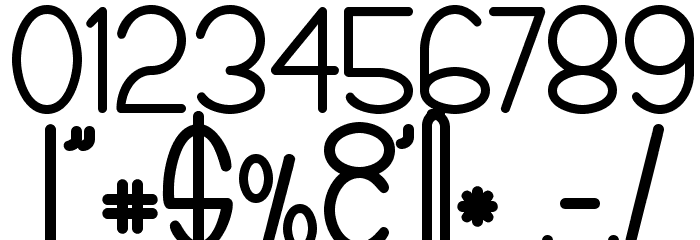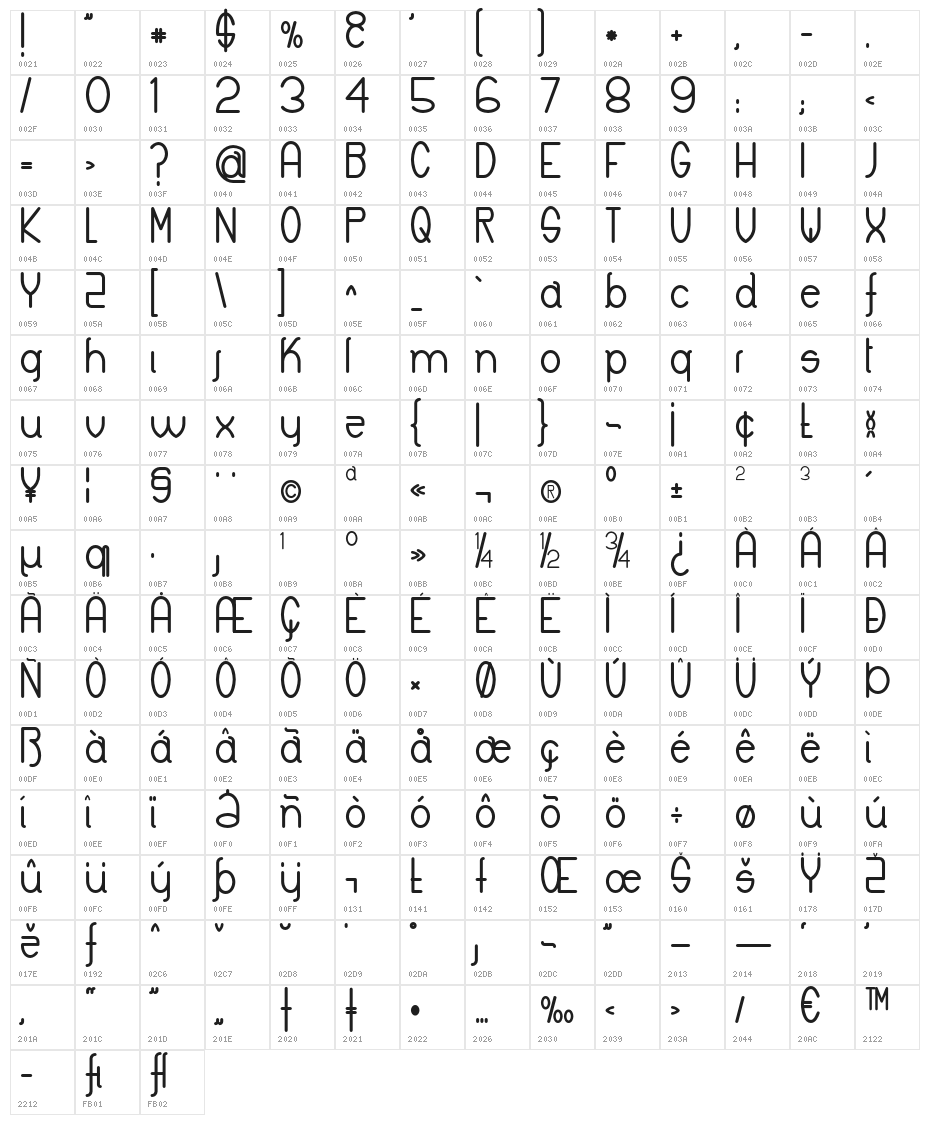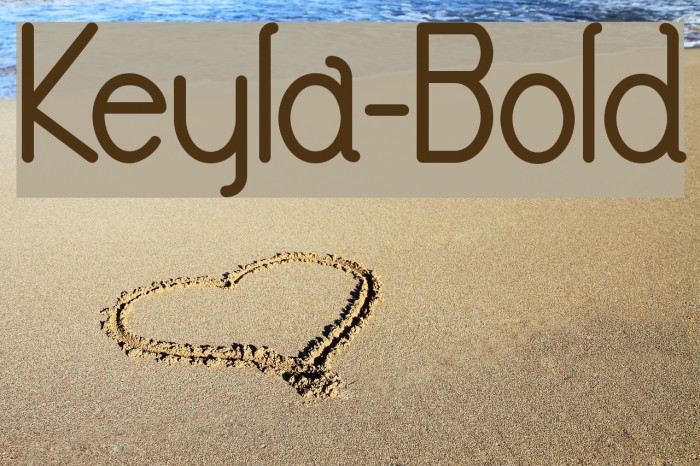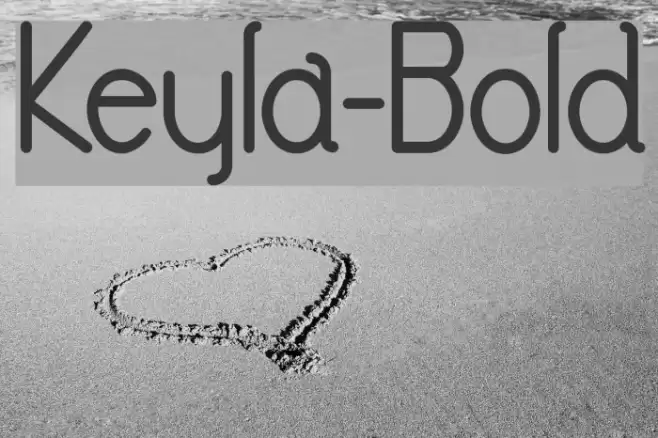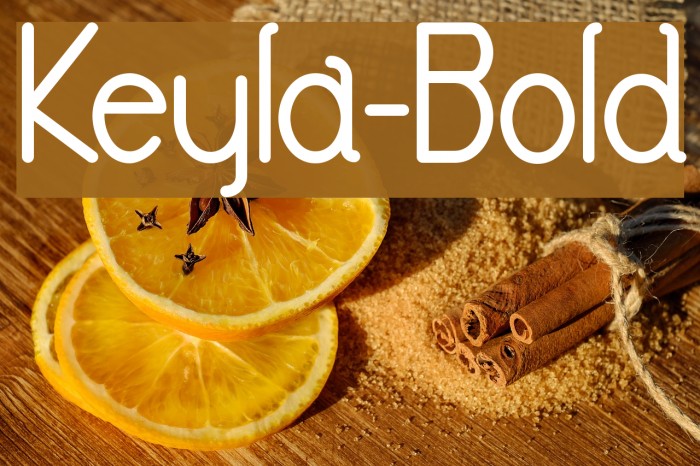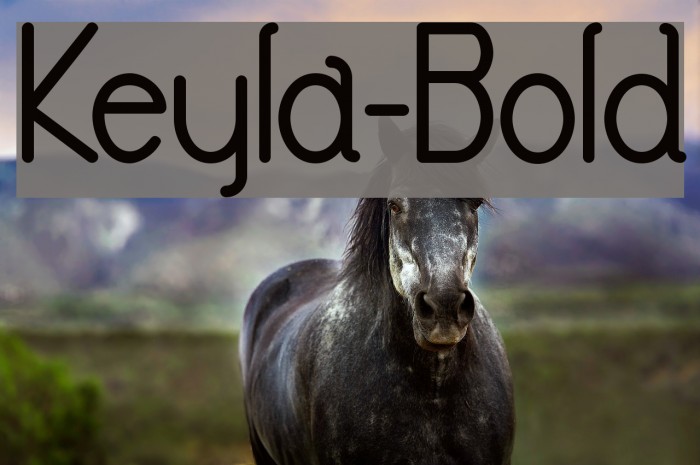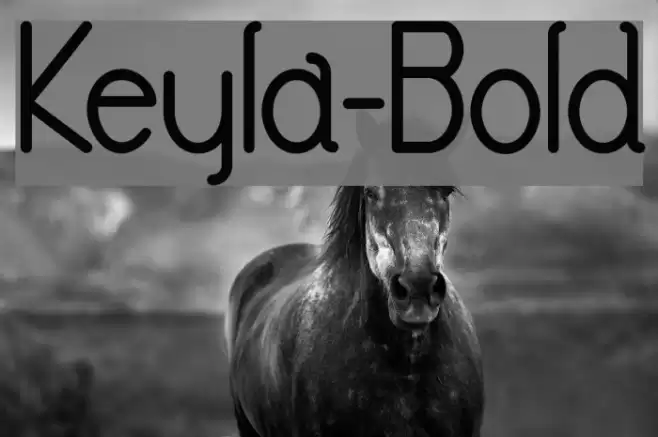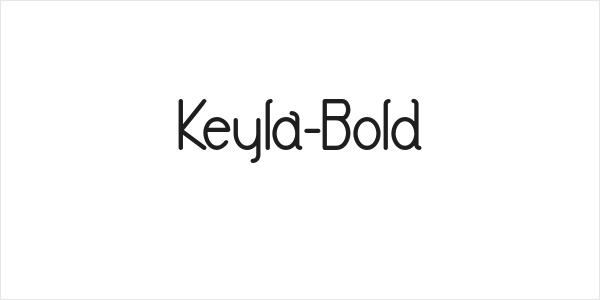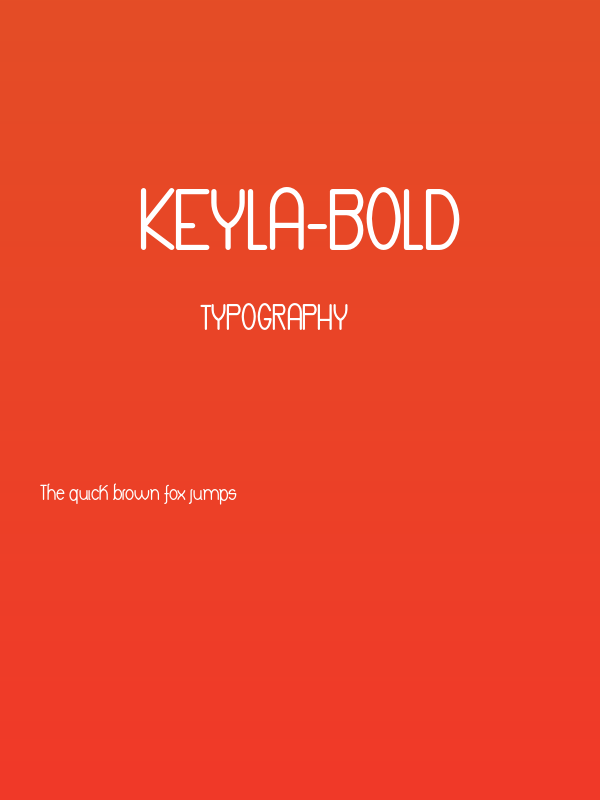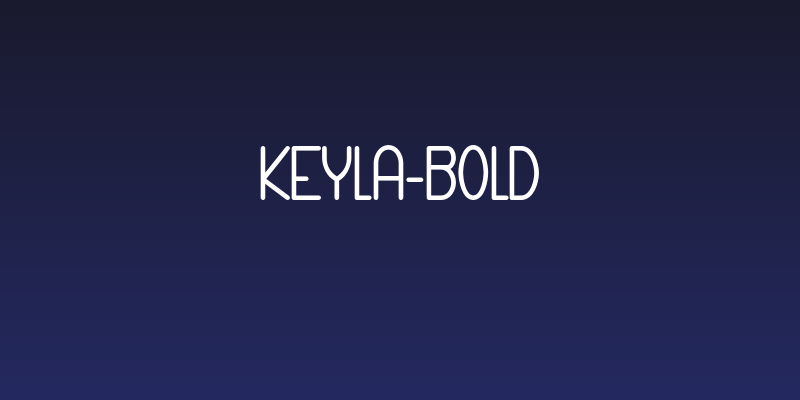
Keyla-Bold Font
Keyla-Bold Description
This font features a bold, rounded style with a modern and playful aesthetic. The characters are uniformly thick, giving a consistent and cohesive look across both uppercase and lowercase letters. The rounded edges soften the overall appearance, making it approachable and friendly. The numerals and special characters maintain the same rounded and bold characteristics, ensuring uniformity throughout. This font's design is clean and legible, with a touch of whimsy that makes it stand out.
| Proposed Projects | Ideal for branding, children's books, playful posters, and modern advertising campaigns. |